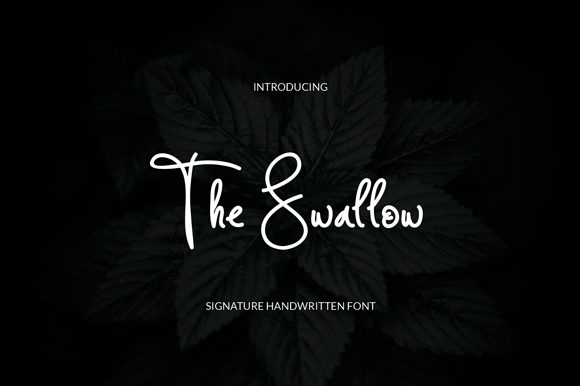
Embrace the Elegance of The Swallow Font: Your Gateway to a World of Creative Expression
In a realm where individuality reigns supreme, The Swallow Font unveils itself as a testament to artistic brilliance. This meticulously crafted script font, gracefully penned by Eurus 99, stands out as a captivating fusion of casual charm and heartfelt authenticity.
Unleash a symphony of creativity with The Swallow's effortless flow and whimsical curves. Its unique character seamlessly blends the allure of handwritten notes with the crisp precision of digital artistry, making it the ideal companion for a diverse array of design endeavors.
Embark on an adventure of self-expression as you witness your words transformed into captivating works of art. The Swallow's versatility knows no bounds, effortlessly adapting to a myriad of creative pursuits, from crafting heartfelt messages to designing eye-catching logos.
Visualize your social media posts adorned with The Swallow's enchanting presence, as your words dance across the screen with captivating flair. Craft one-of-a-kind invitations that embody your personal style and leave a lasting impression on your loved ones. Let your imagination soar as you design artisanal posters and flyers that radiate a sense of effortless sophistication.
Indulge in the tactile pleasure of handwritten notes, as The Swallow's graceful strokes effortlessly glide across paper. Create personalized cards that carry the warmth of your heartfelt sentiments, or embark on a journey of creative journaling, capturing your thoughts and dreams in a font that mirrors the beauty of your inner world.
The Swallow Font extends beyond mere aesthetics; it serves as an extension of your creative spirit, seamlessly blending form and function. Its unwavering legibility ensures that your messages are conveyed with clarity and impact, while its timeless appeal guarantees that your creations will stand the test of time.
Elevate your digital signature to new heights with The Swallow's distinctive flair. Its vibrant strokes and elegant curves add an unmistakable touch of personality to your electronic correspondence, transforming mundane emails into expressions of your unique style.
As you venture into the realm of DIY projects, The Swallow Font emerges as your trusted companion, transforming ordinary crafts into extraordinary masterpieces. Personalize your home décor with handcrafted signs and wall art that radiate warmth and character. Design personalized gifts that carry the essence of your thoughtfulness, making them truly exceptional keepsakes.
Step into the world of The Swallow Font, where creativity knows no limits. Allow its graceful curves to guide your imagination and transform your designs into captivating works of art. Embrace the beauty of handwritten elegance and embark on a journey of self-expression that will leave an indelible mark on the hearts of all who behold your creations.